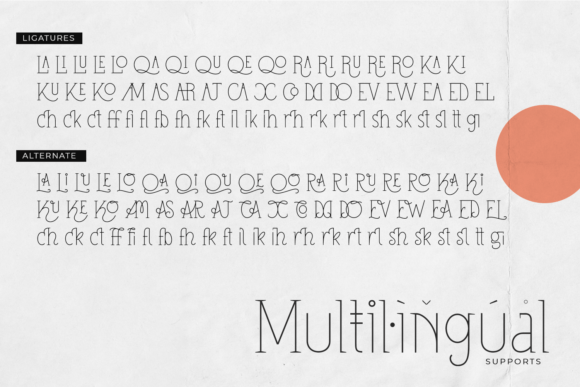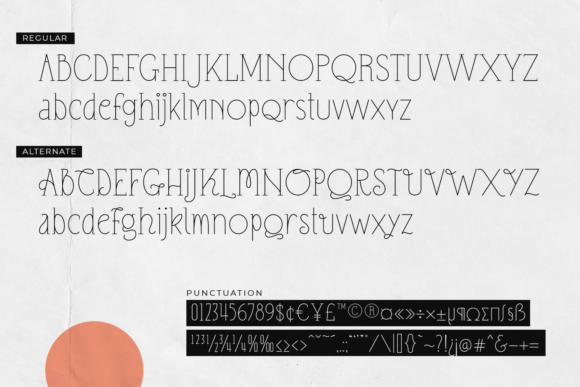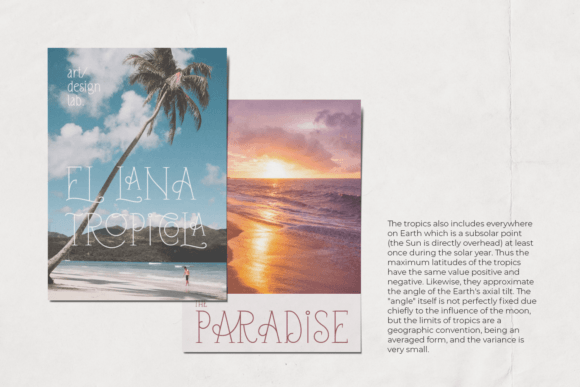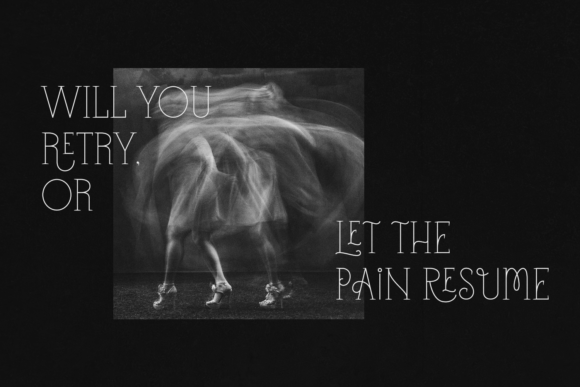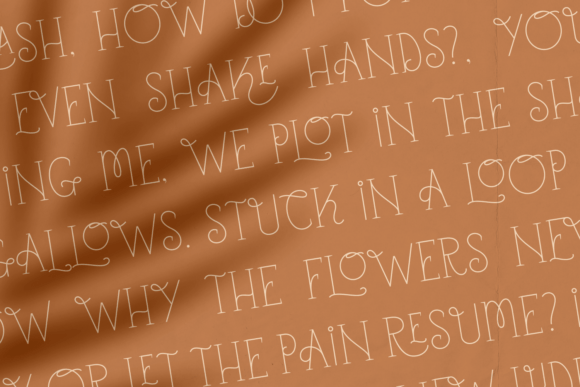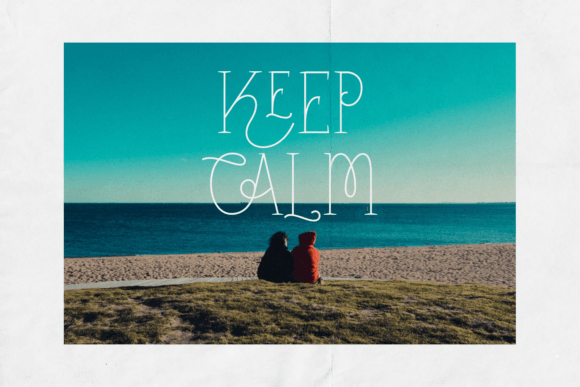
The Elysia Font: Elevate Your Designs with Elegance and Whimsy
I’ll never forget the time I was working on a branding project for a luxury wellness client. I had spent hours perfecting the logo, but something felt off. The font I had chosen just wasn’t giving me the sophisticated, yet approachable vibe I was going for. That’s when I stumbled upon the Elysia font. With its modern, graceful lines and flowing serifs, it was like a breath of fresh air. I knew right then and there that I had found the perfect fit.
So, what makes the Elysia font so special? Here are a few things that I absolutely love:
- ✨ Unique yet legible: Elysia’s serifs are elegant and refined, making it perfect for body text and headlines alike.
- ✅ Modern feel: This font has a distinctly contemporary vibe that will keep your designs feeling fresh and current.
- 💫 Versatile: Whether you’re working on a luxury brand or a playful craft project, Elysia’s got you covered.
Of course, no font is perfect, and Elysia does have a few minor quirks:
- 🤔 Limited availability of certain characters: Some users have reported that certain special characters or glyphs are not available in Elysia. However, this is relatively rare and usually not a deal-breaker.
- ⚠️ May not be suitable for very small text sizes: As with many serif fonts, Elysia can get a bit lost at very small text sizes. Be sure to test it out at different sizes to ensure it works for your project.
- Experiment with OpenType features like ligatures and stylistic alternates to add some extra flair to your text.
The Story Behind Elysia: A Designer’s Inspiration
Elysia was designed with the goal of creating a font that was both elegant and approachable. Inspired by the flowing lines of handwritten script and the sophistication of traditional serif fonts, Elysia’s creator aimed to craft a font that would feel at home in a wide range of design contexts. Whether you’re working on a luxury brand or a playful craft project, Elysia’s unique blend of modernity and classic charm makes it the perfect choice.
Q: What makes Elysia a good choice for body text?
A: Elysia’s clear, legible letterforms and flowing serifs make it an excellent choice for body text. Its modern feel also helps keep your content feeling fresh and engaging.
Q: Can I use Elysia for headlines and titles?
A: Absolutely! Elysia’s elegant lines and sophisticated feel make it perfect for headlines and titles. Experiment with different weights and OpenType features to add extra visual interest.
Q: Is Elysia suitable for digital use?
A: Yes, Elysia is optimized for both print and digital use. Its clear letterforms and flowing serifs ensure that it remains legible even at smaller sizes.